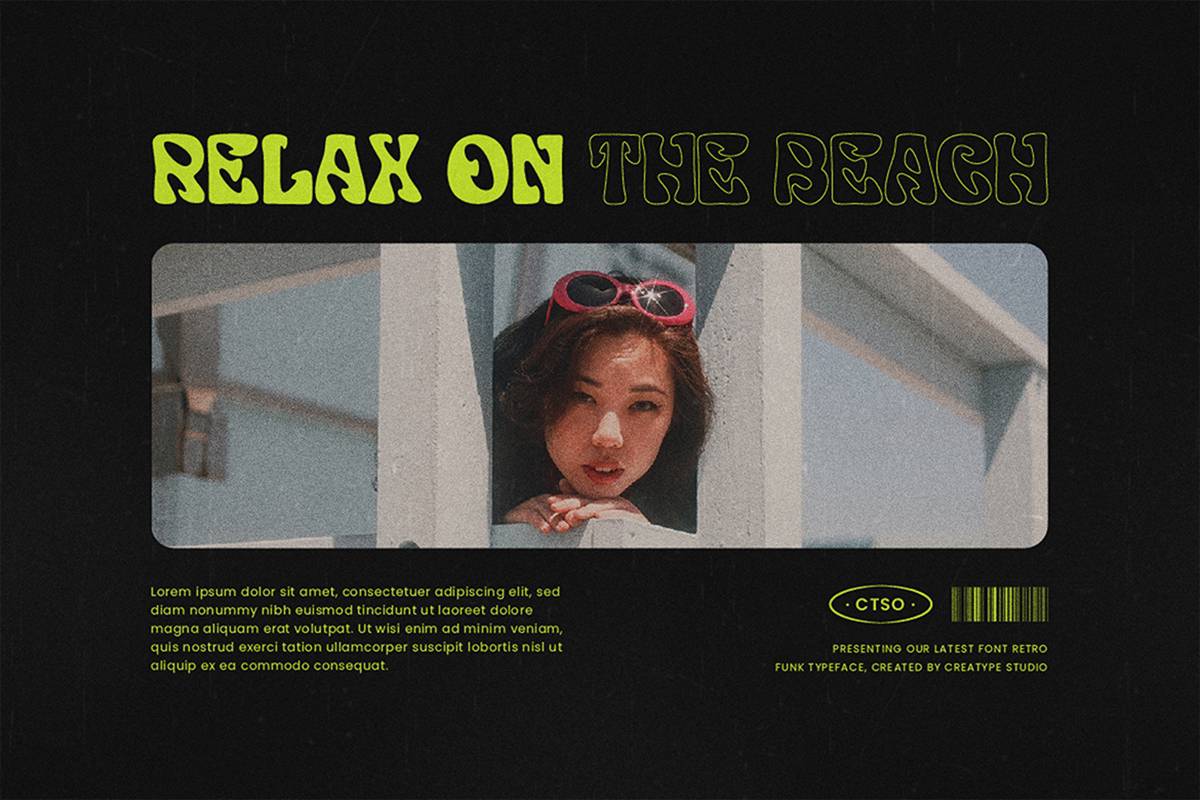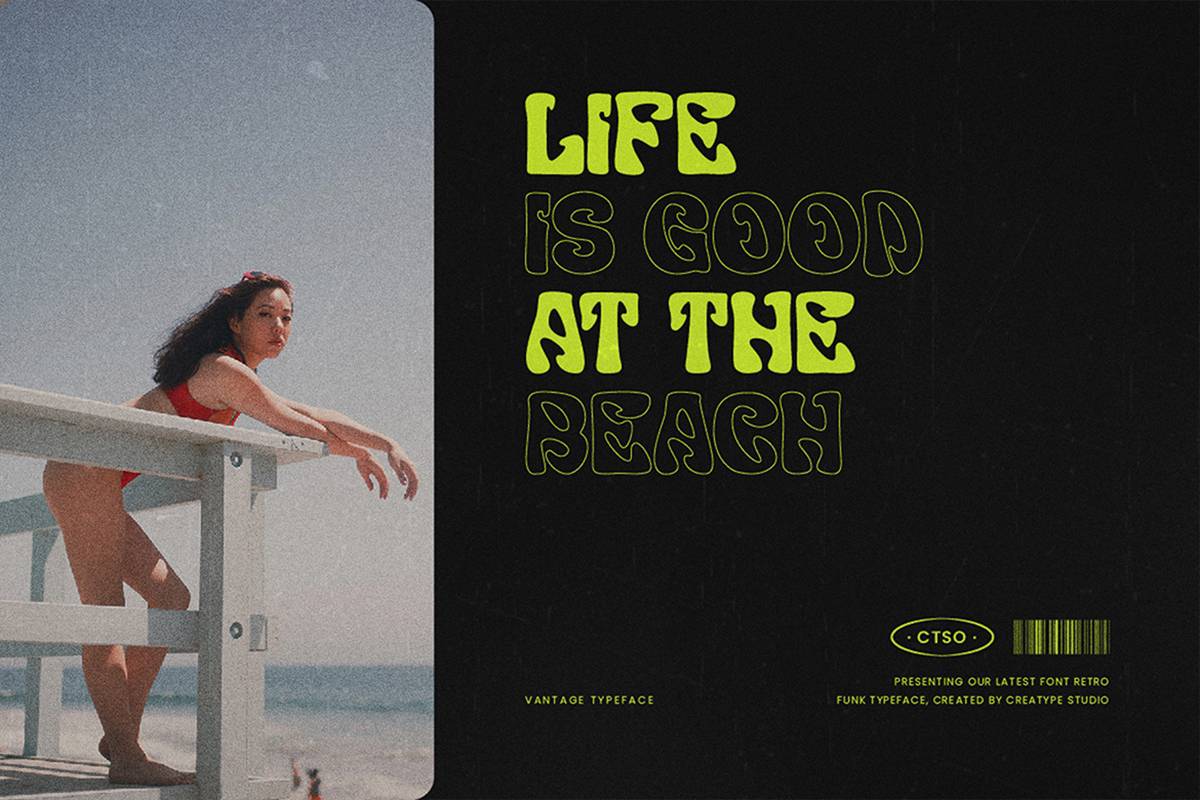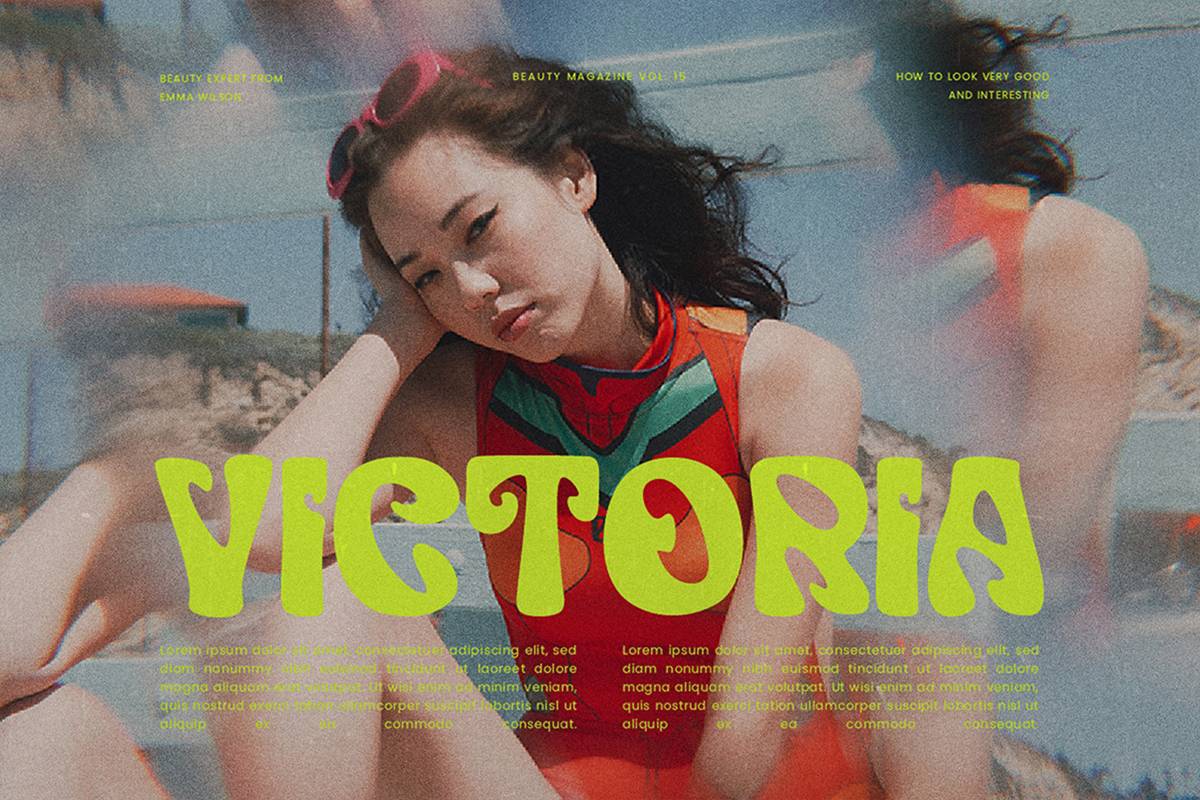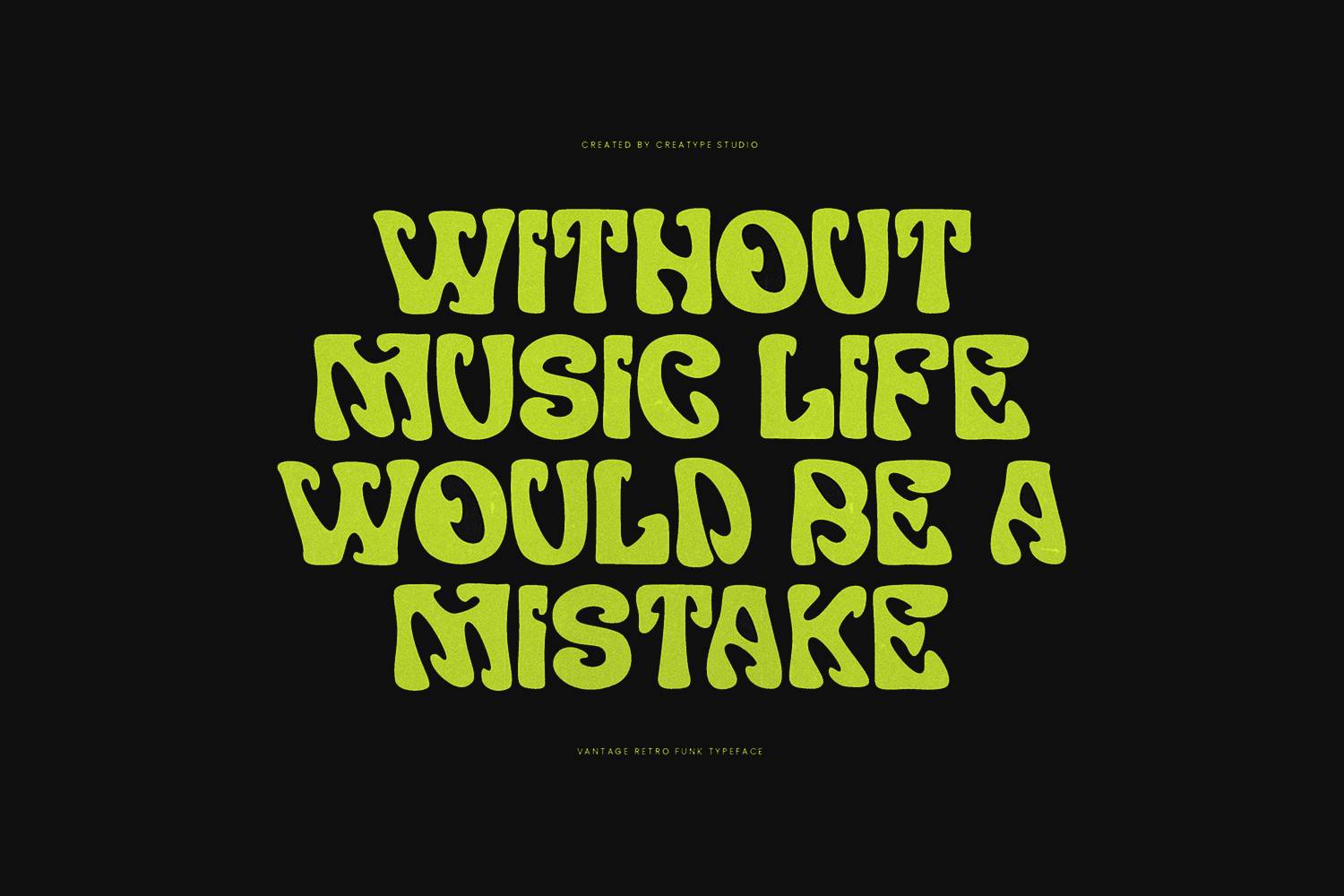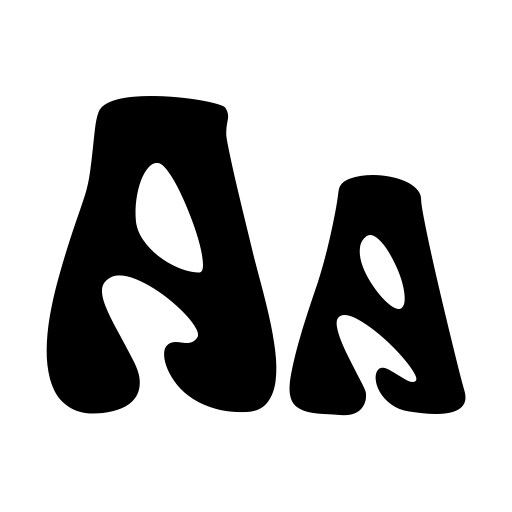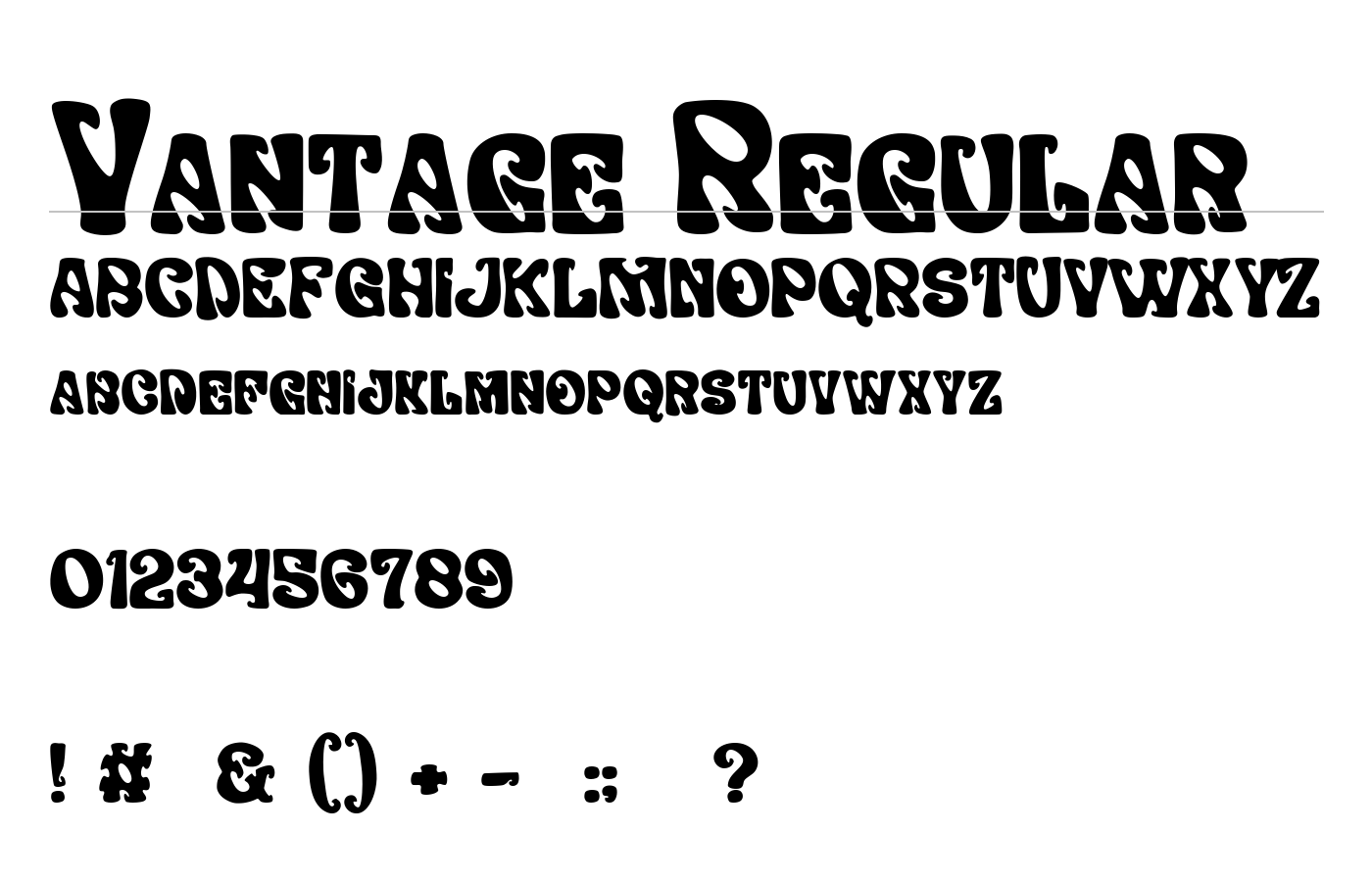
Vantage is a bold, decorative display font featuring chunky, playful letterforms with a retro vibe reminiscent of the 1960s and 70s. Its unique, slightly irregular shapes and dense stroke weight give it a fun, eye-catching personality perfect for creating standout headlines, logos, and posters that want to convey creativity and a vintage flair. This font is best suited for designs needing strong visual impact and energetic character rather than extended body text.
Vantage Font
About Vantage Font